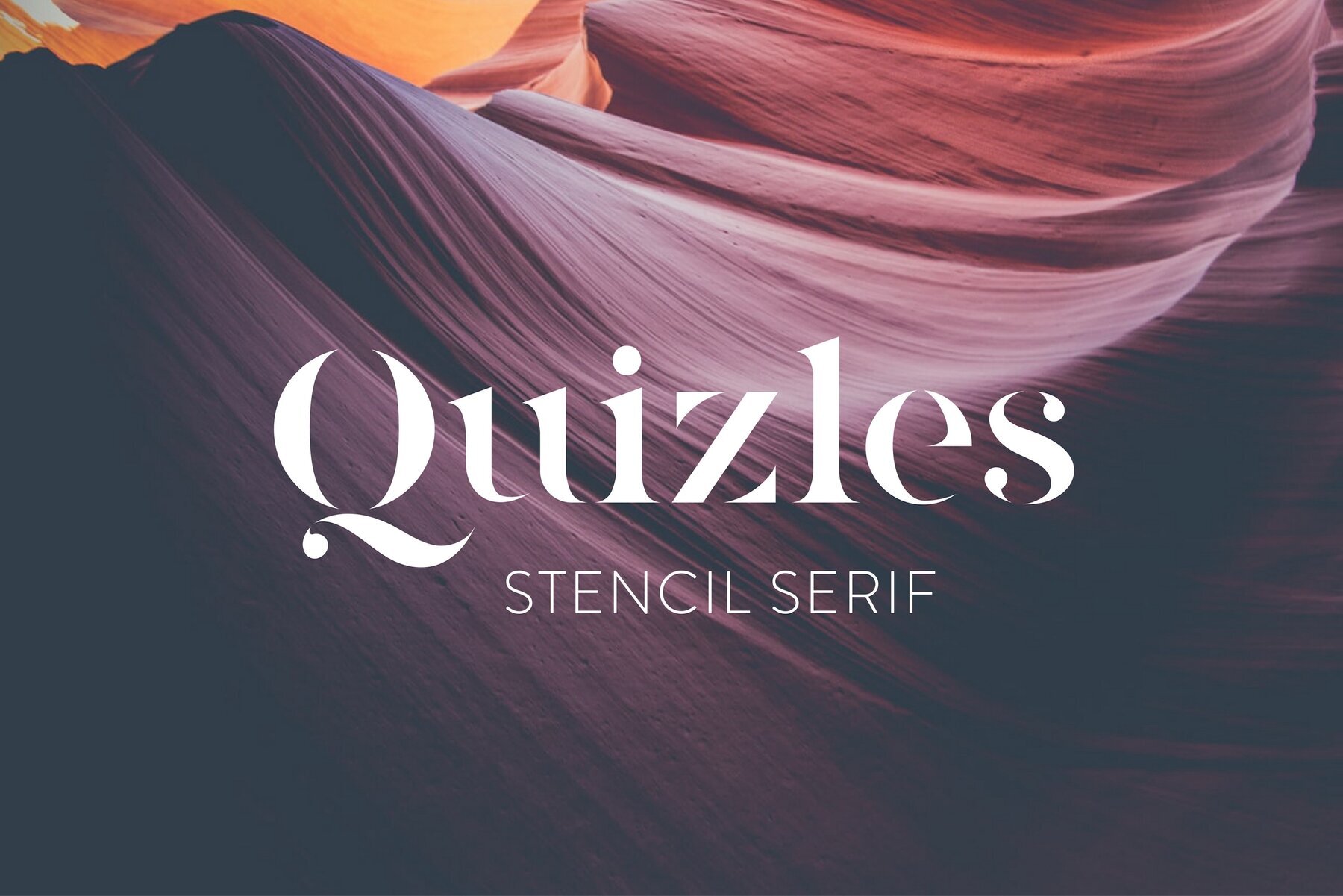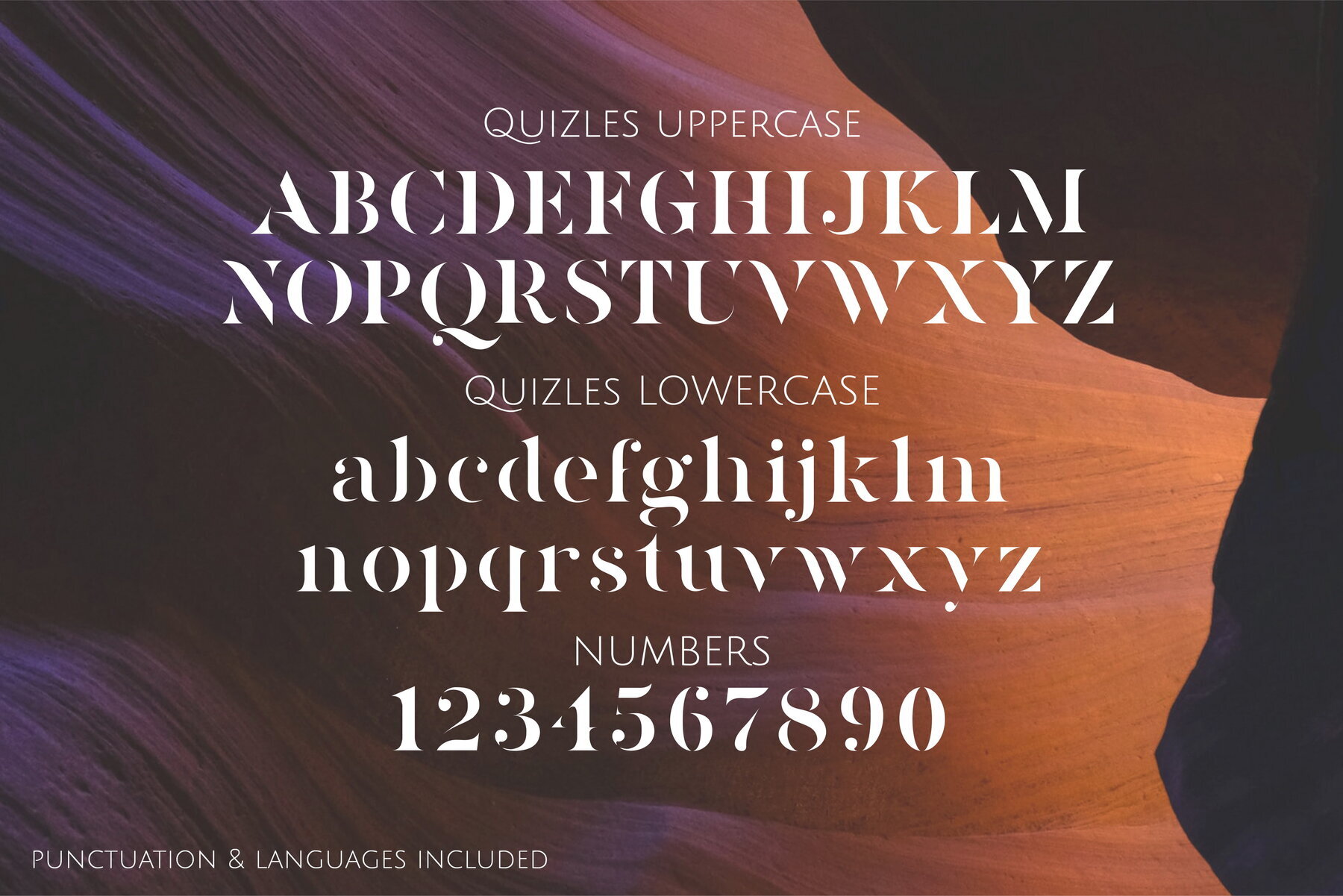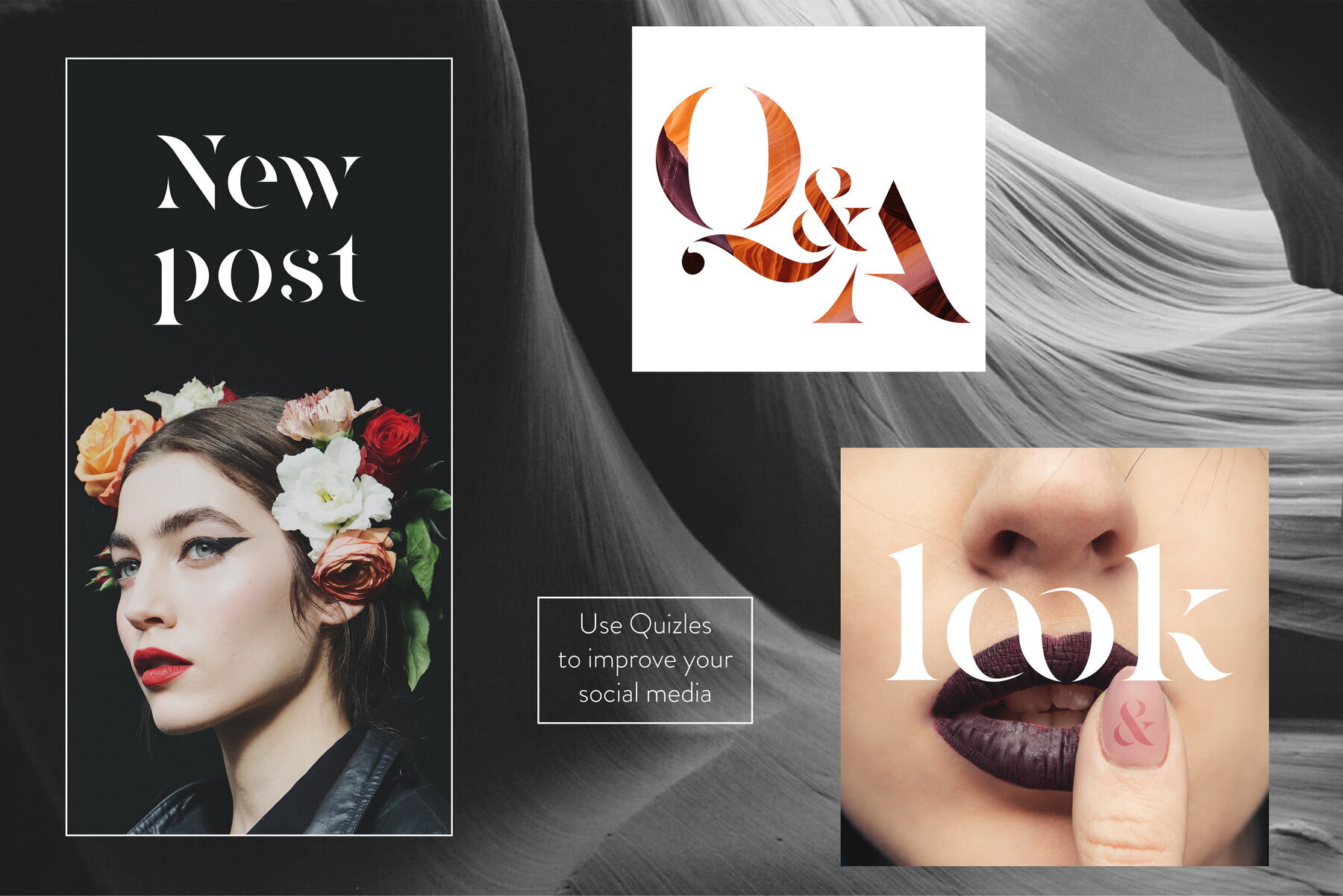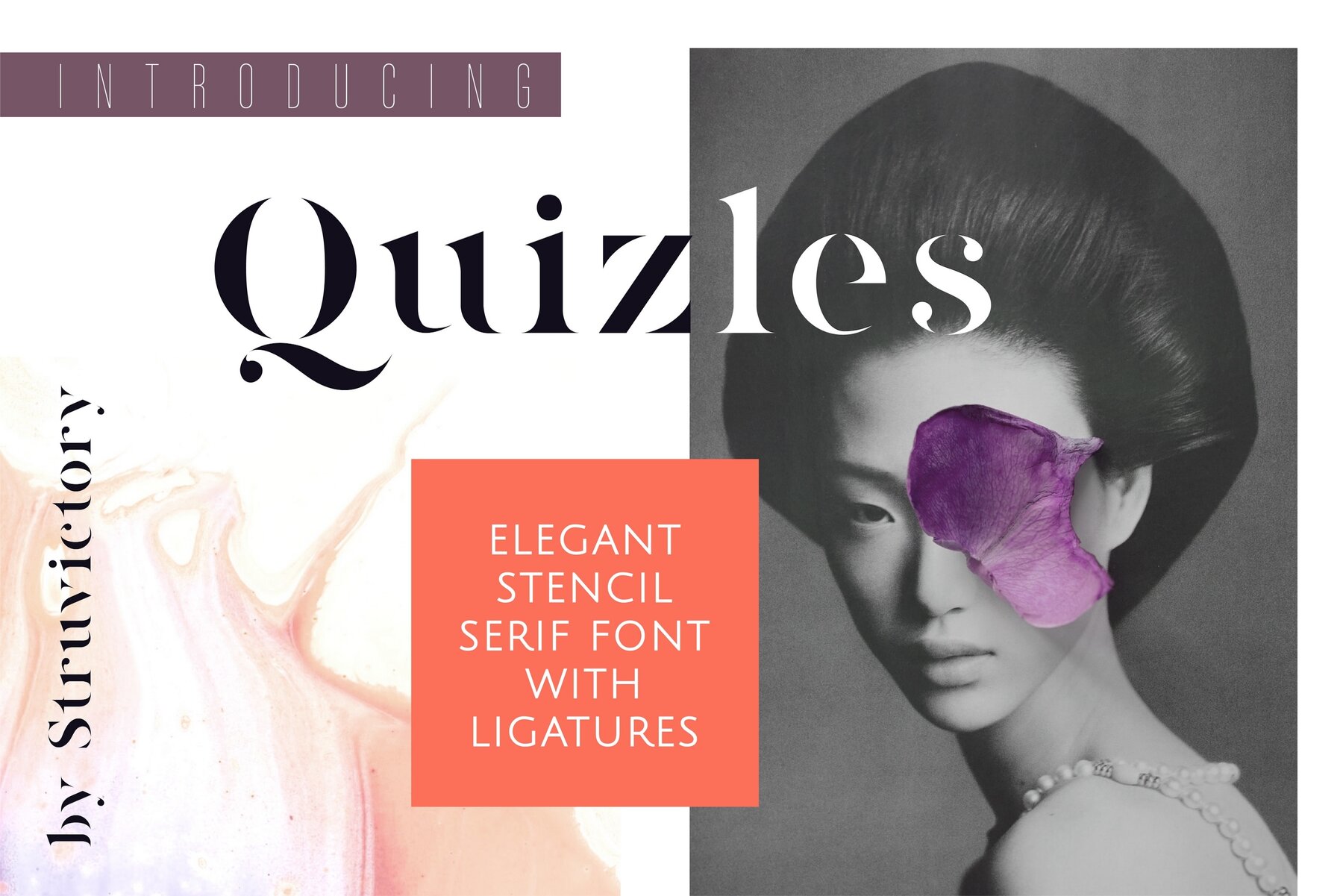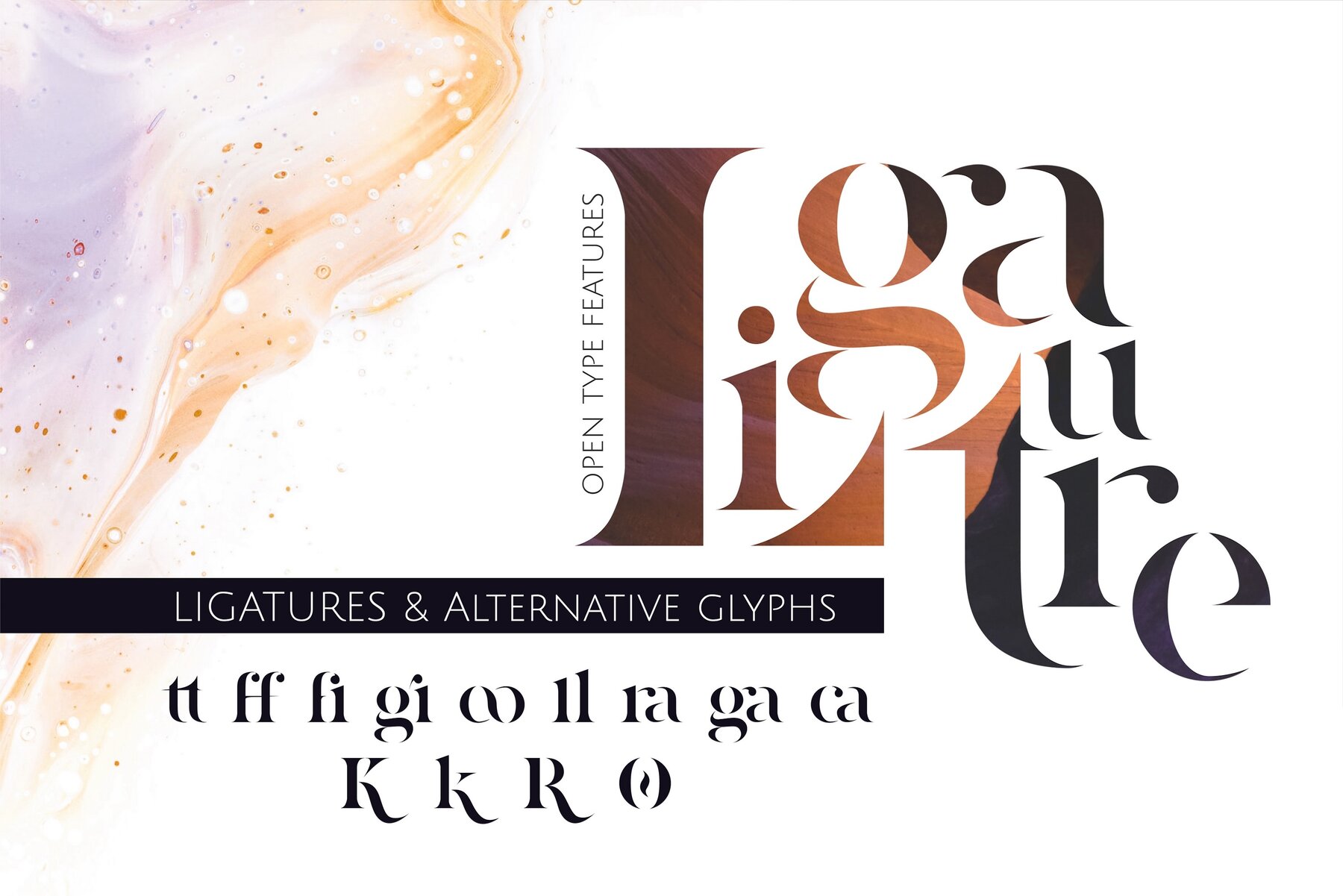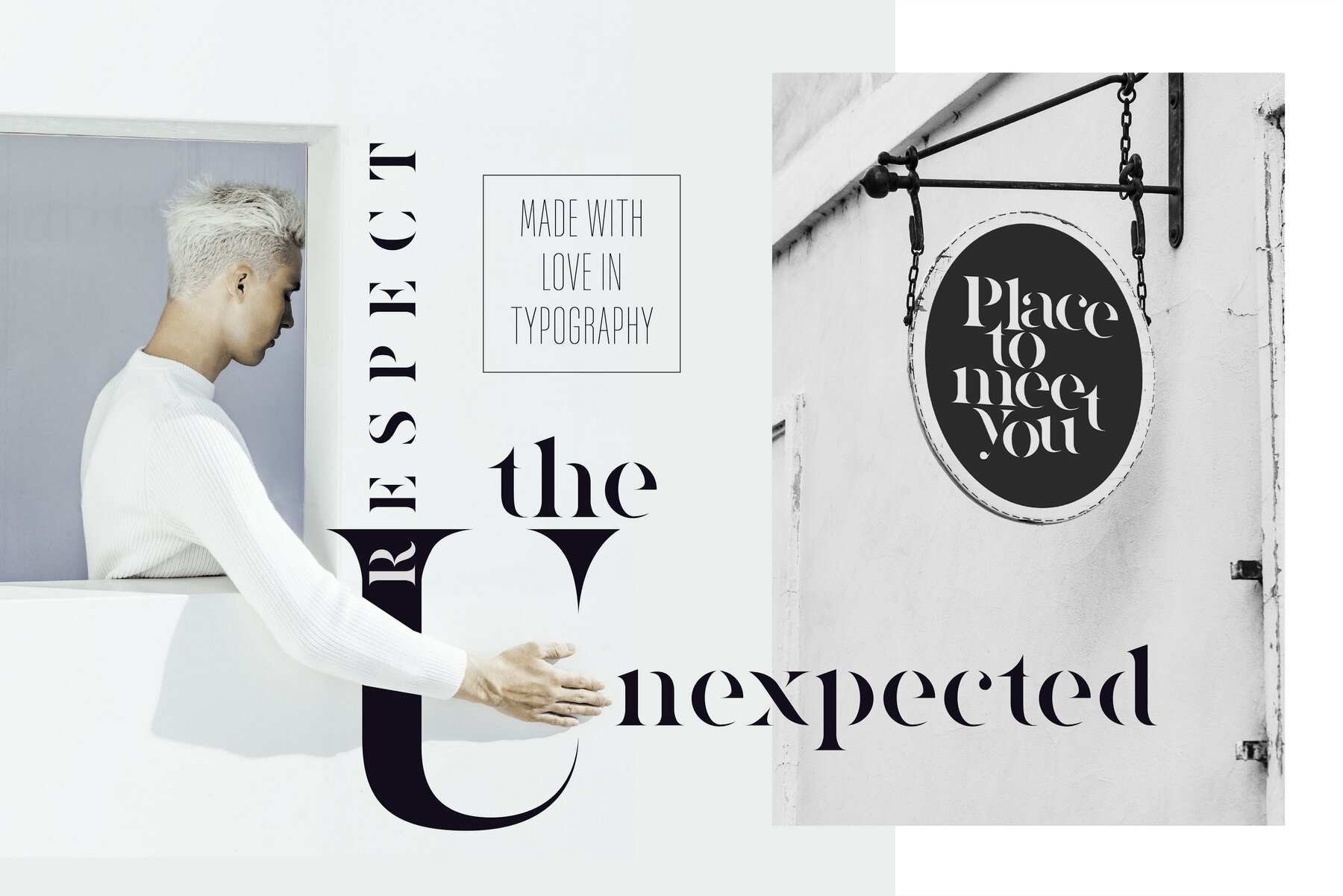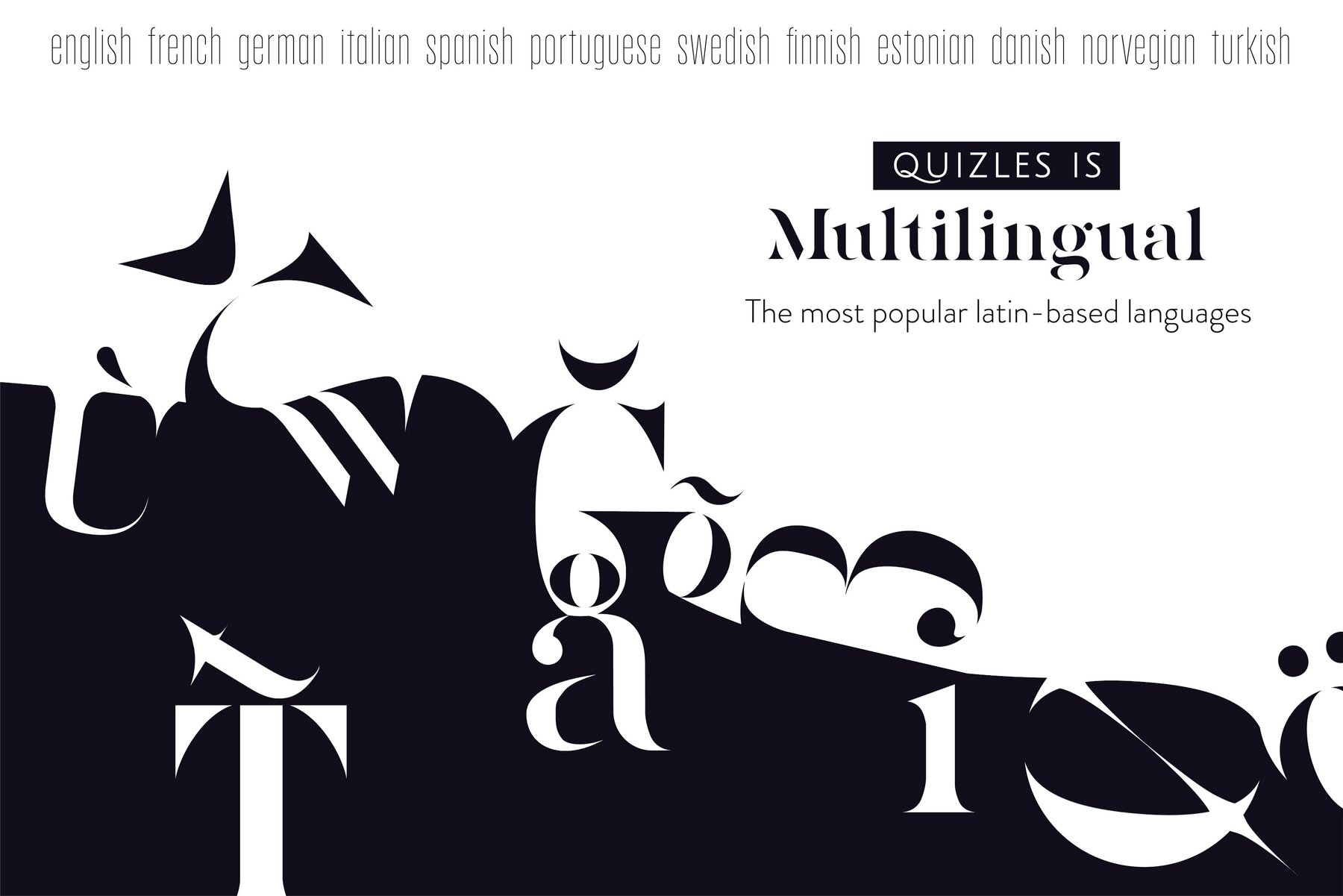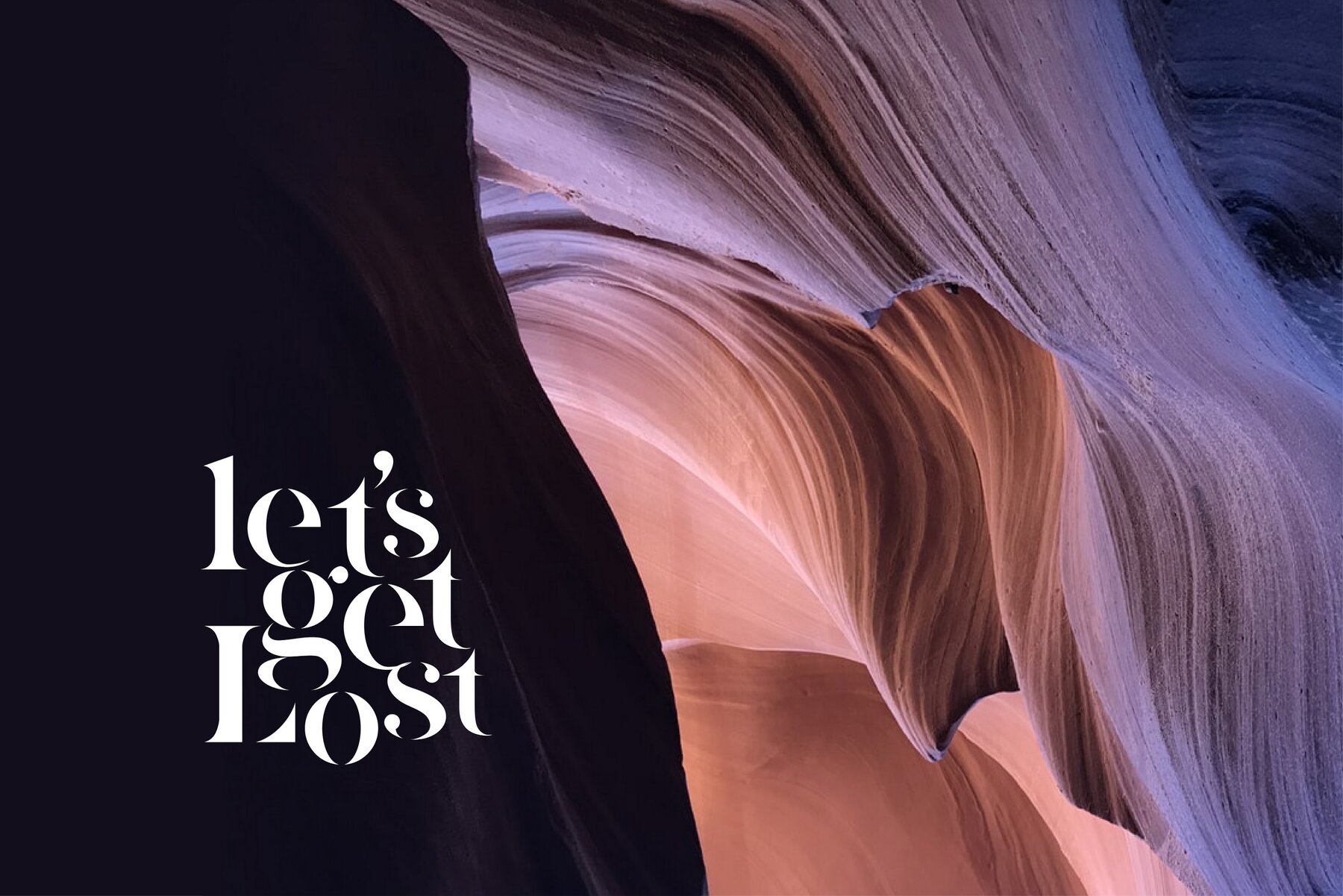
Quizles Font
Quizles Decorative
Quizles is an elegant stencil serif typeface characterized by its classic proportions and bold serifs contrasted with thin, fading lines. This versatile font seamlessly integrates into a variety of design programs, as well as being user-friendly for standalone applications. It is ideal for both modern and vintage typographic compositions, making it perfect for book and fashion magazine design, branding, packaging, and social media graphics. Additionally, Quizles offers the flexibility to use individual letters for creating distinctive logos and monograms.
The typeface provides comprehensive language support, accommodating English, French, German, Italian, Spanish, Portuguese, Danish, Norwegian, Swedish, Finnish, Estonian, and Turkish. To enhance creativity and customization, Quizles includes stylistic alternates for select symbols (K, k, O, R) and features numerous ligatures such as tt, ff, fi, gi, oo, ll, ra, ga, and ca. This combination of aesthetic elegance and functional versatility makes Quizles a valuable asset for designers seeking to create impactful and sophisticated visual compositions.